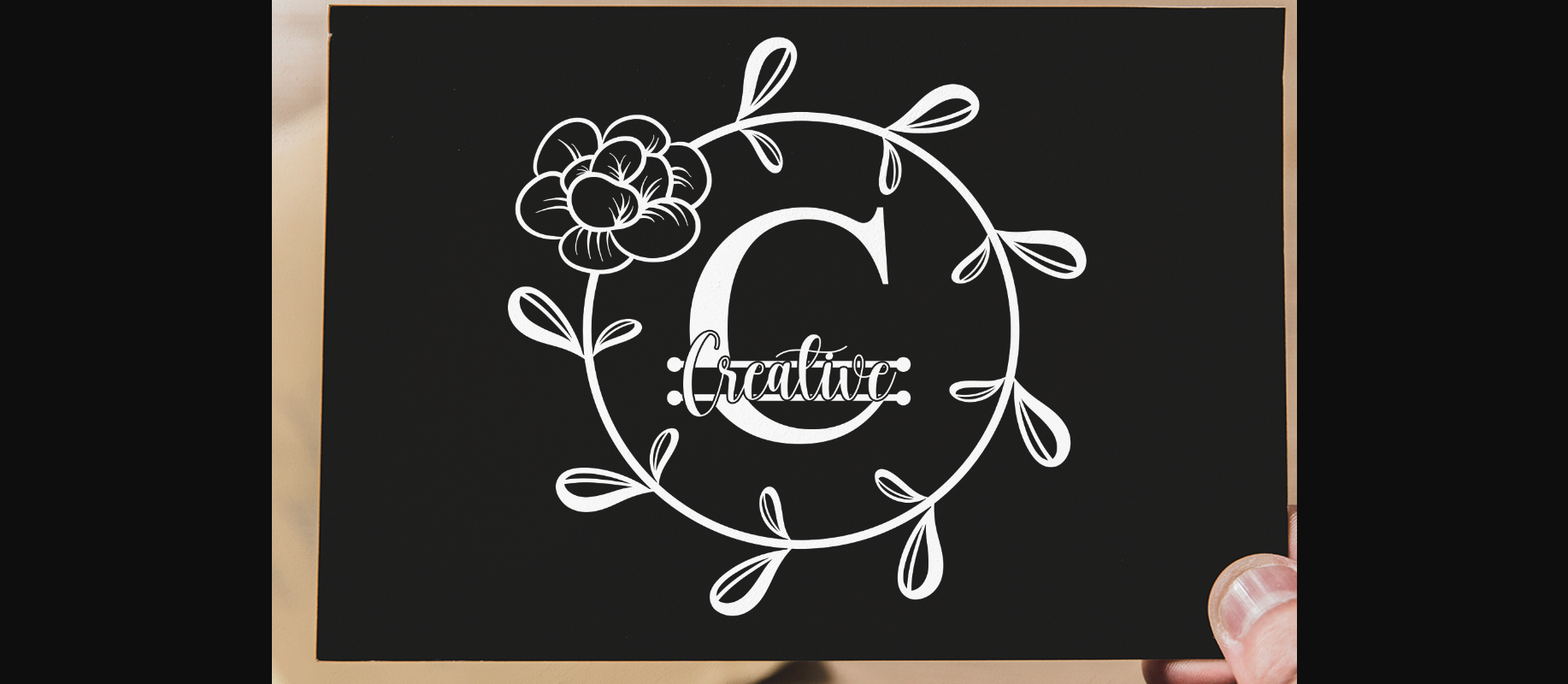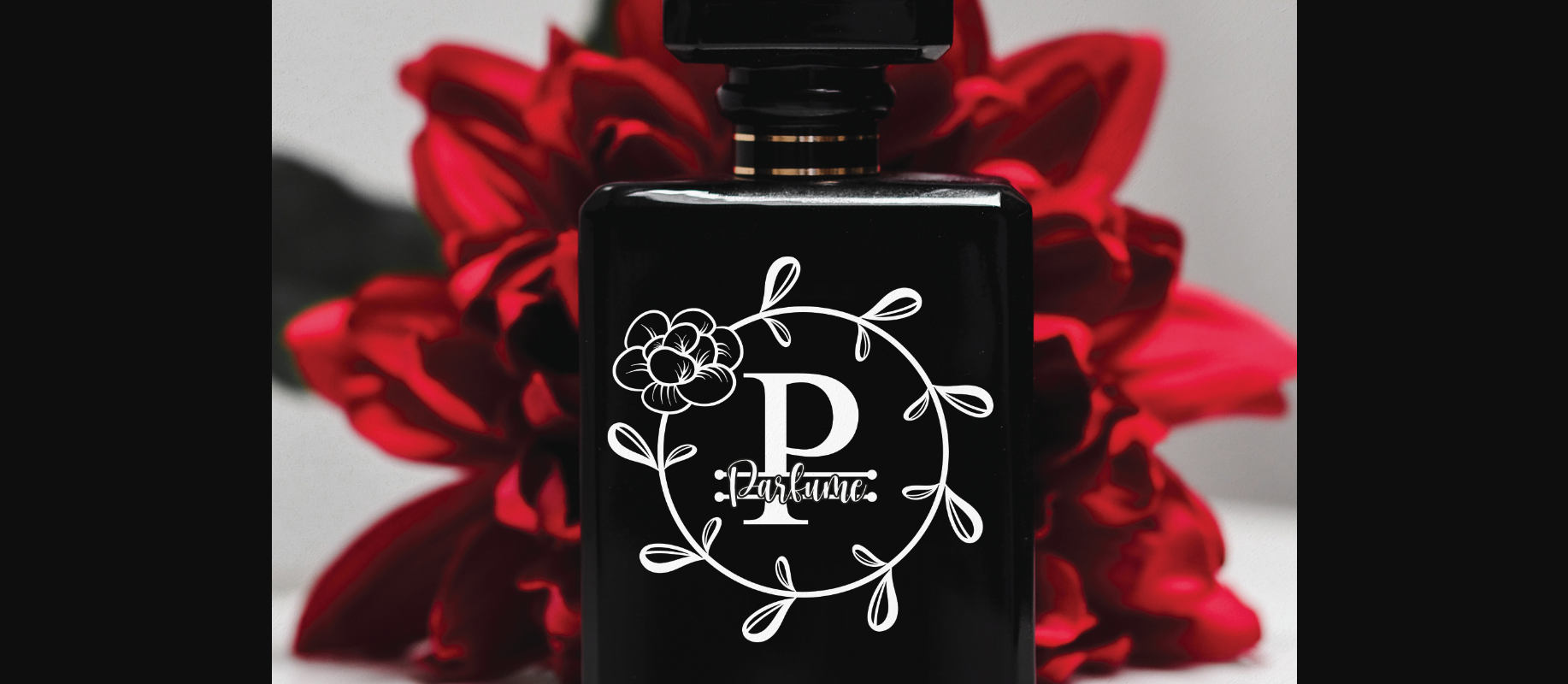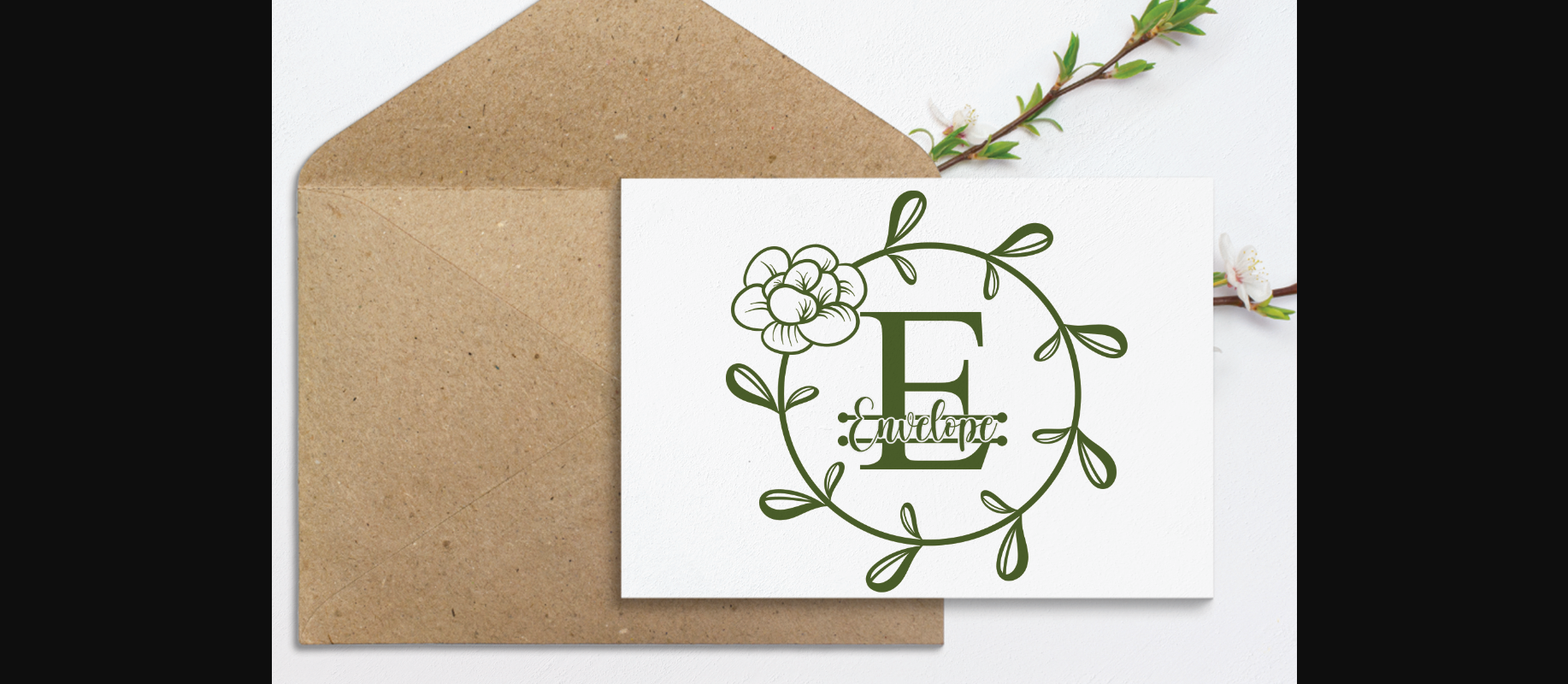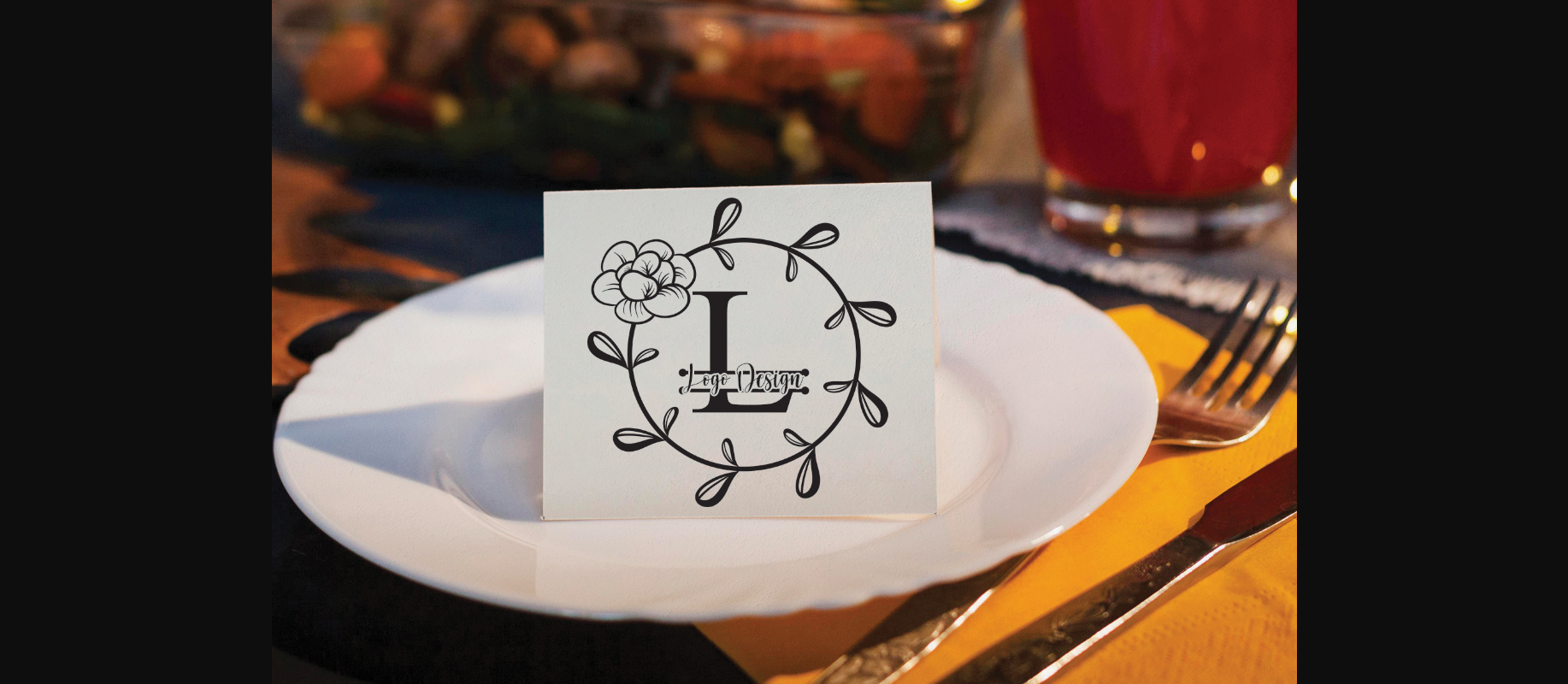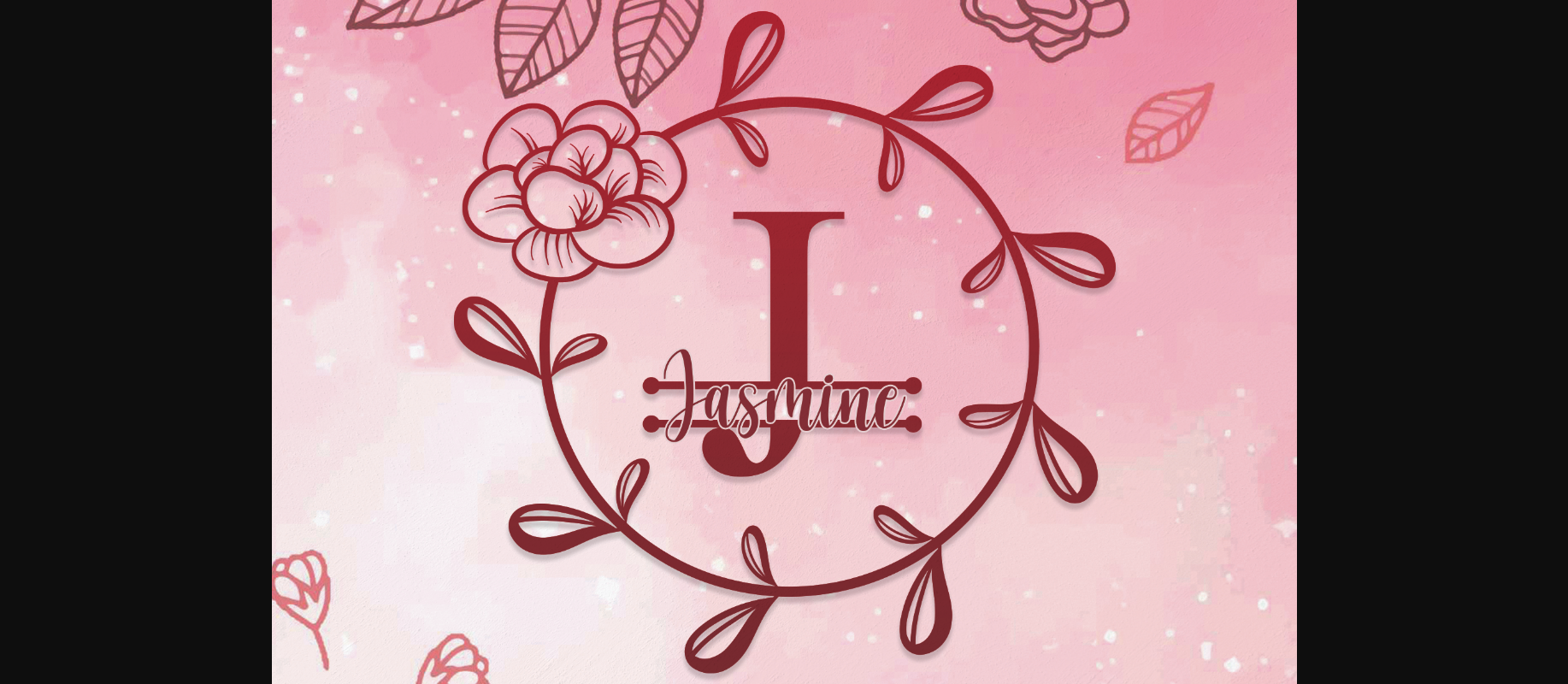
Jasmine is a fresh and highly detailed decorative font. Add this beautiful looking font to each of your love letters, wedding invitations or favorite design ideas, and you will be astounded by the outcome.